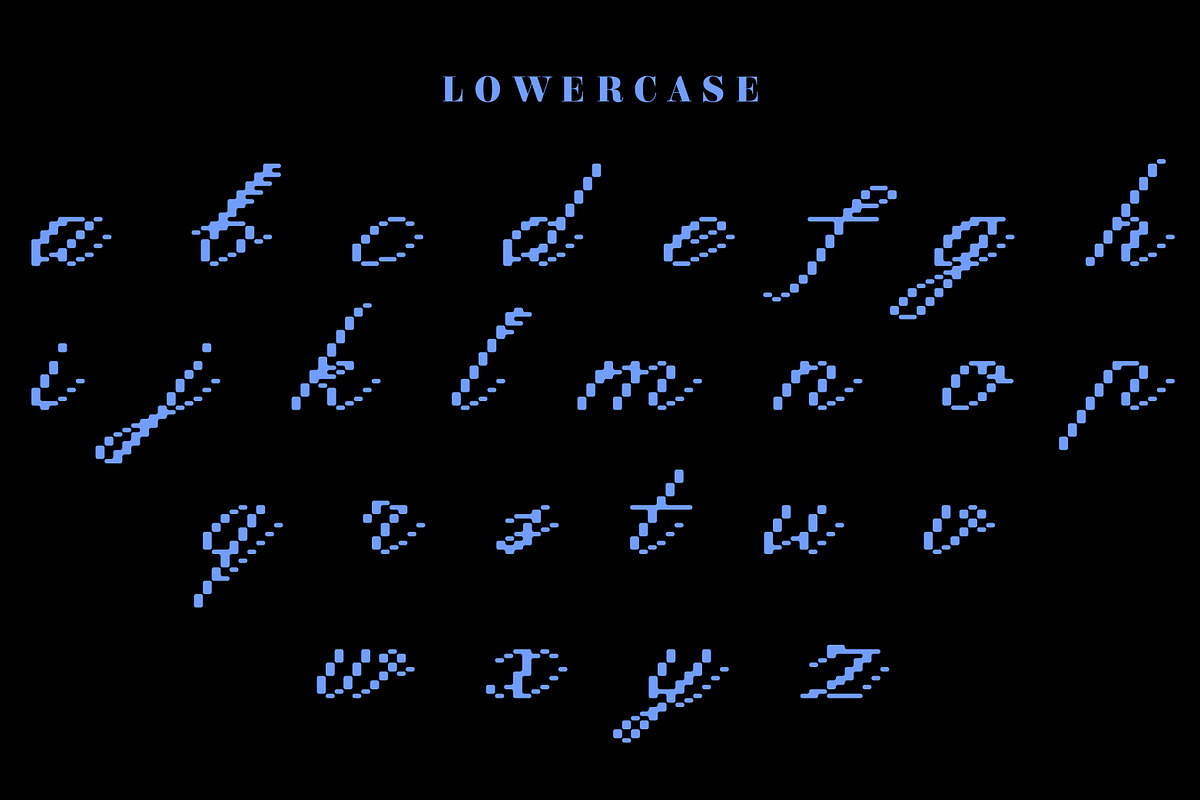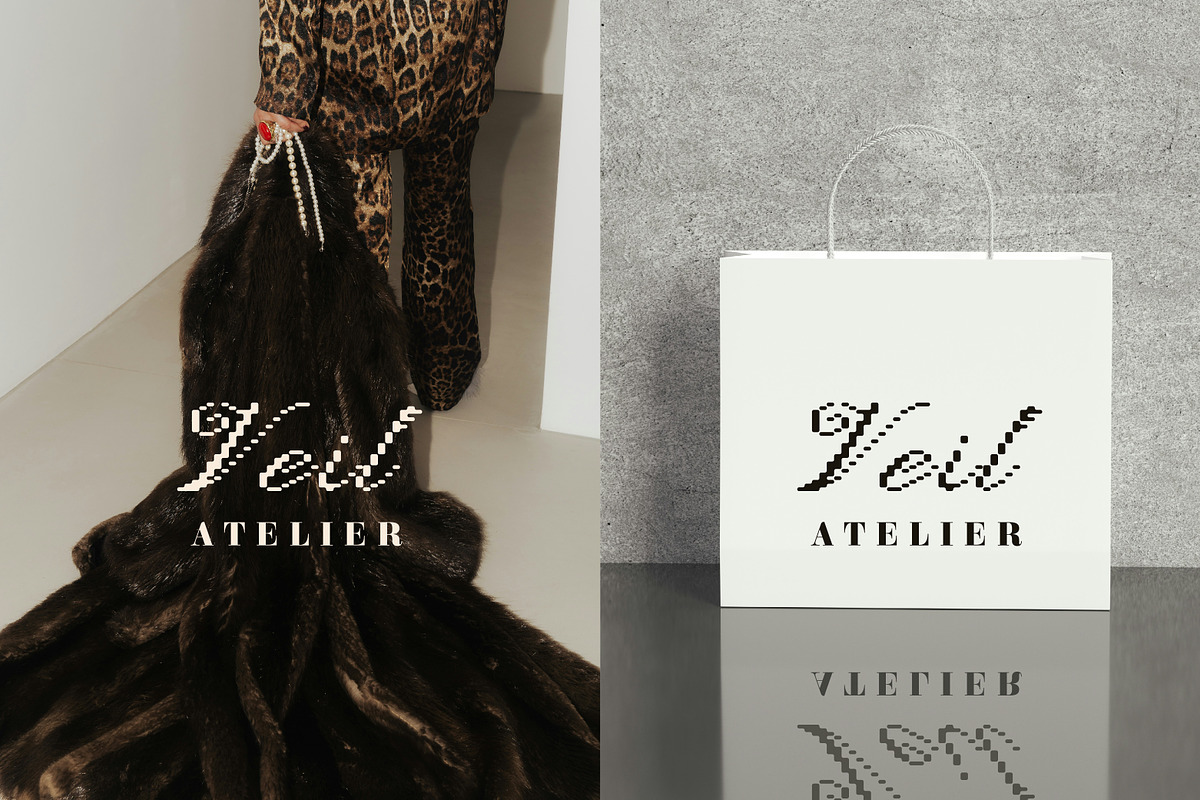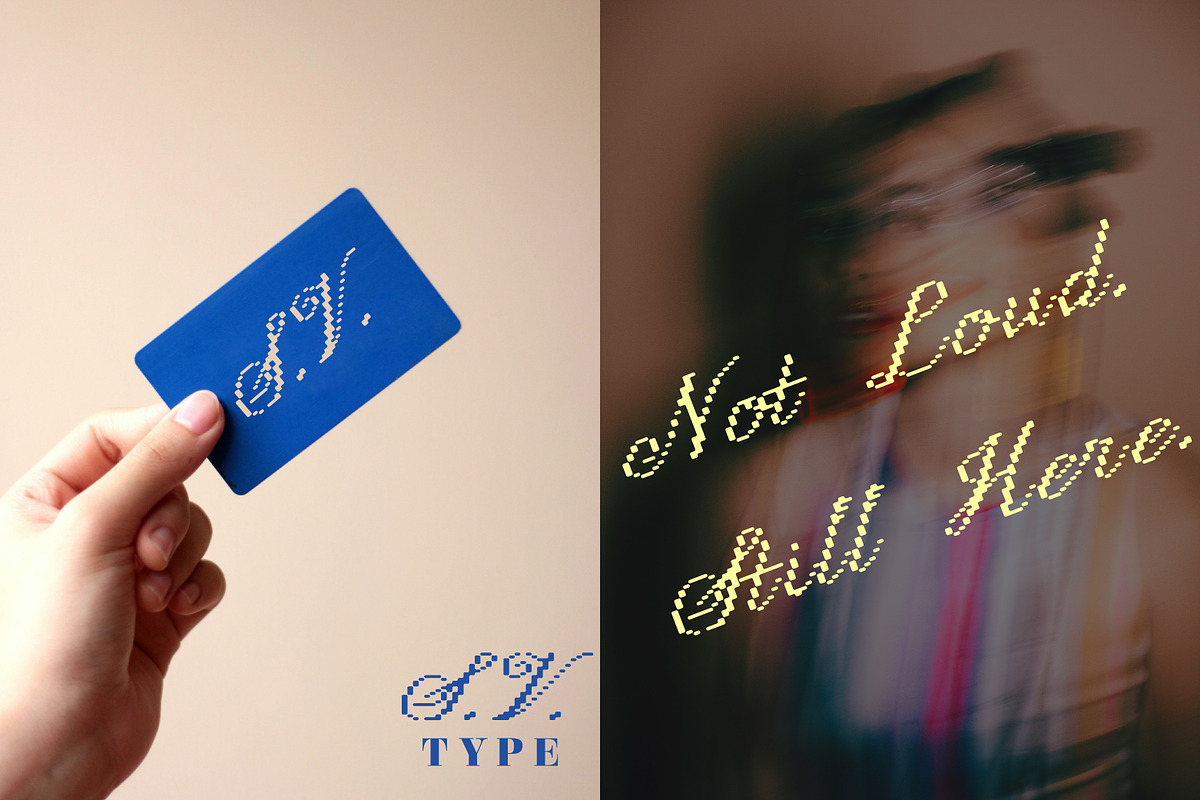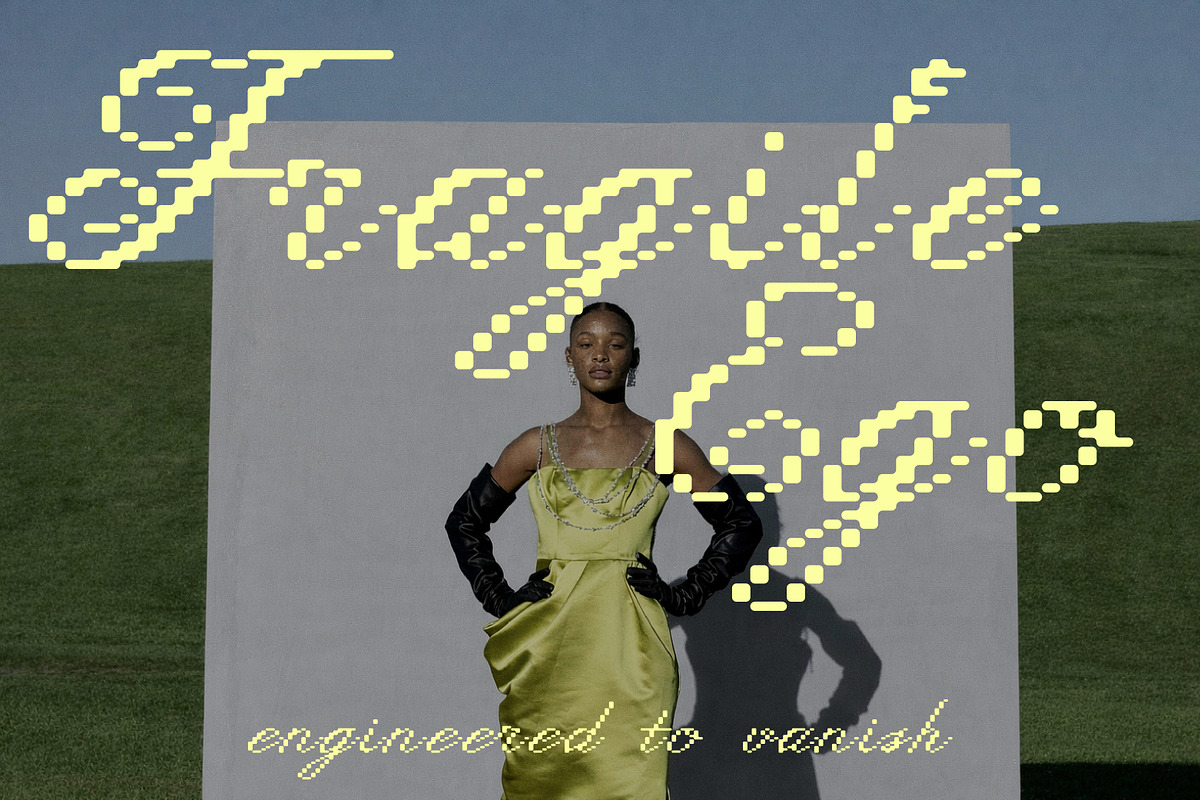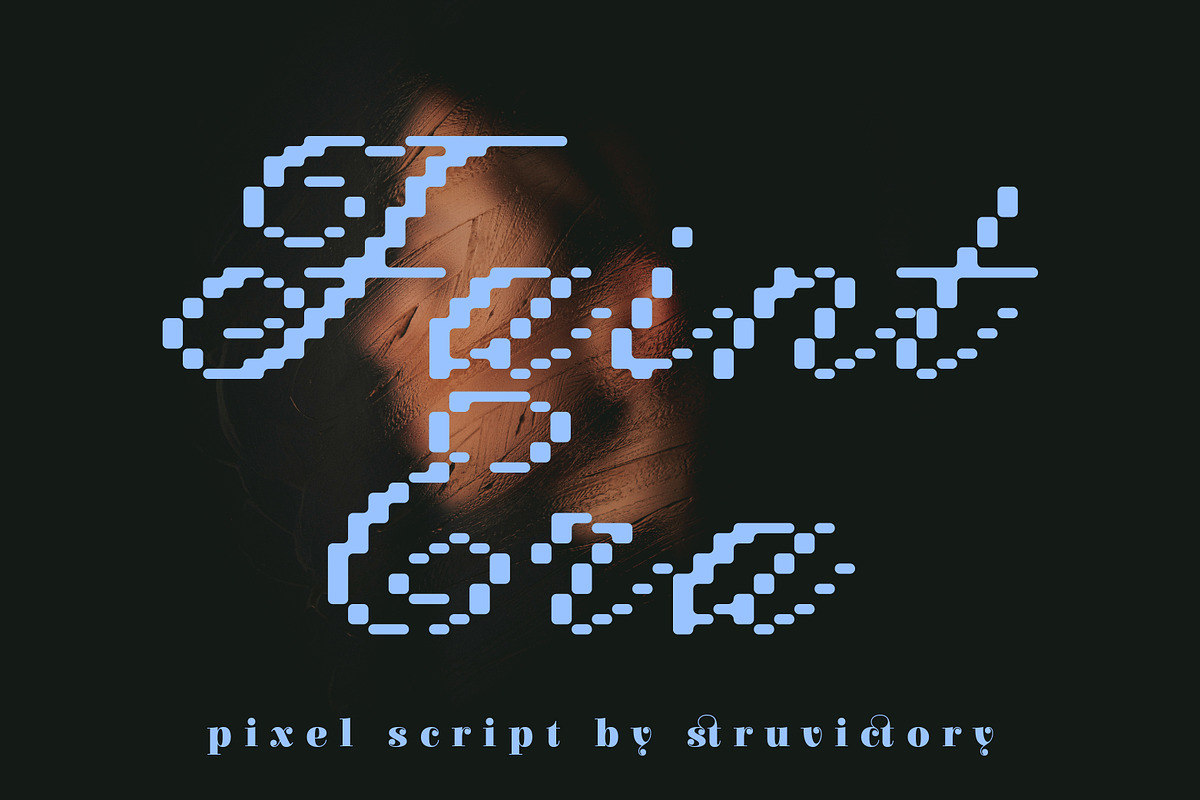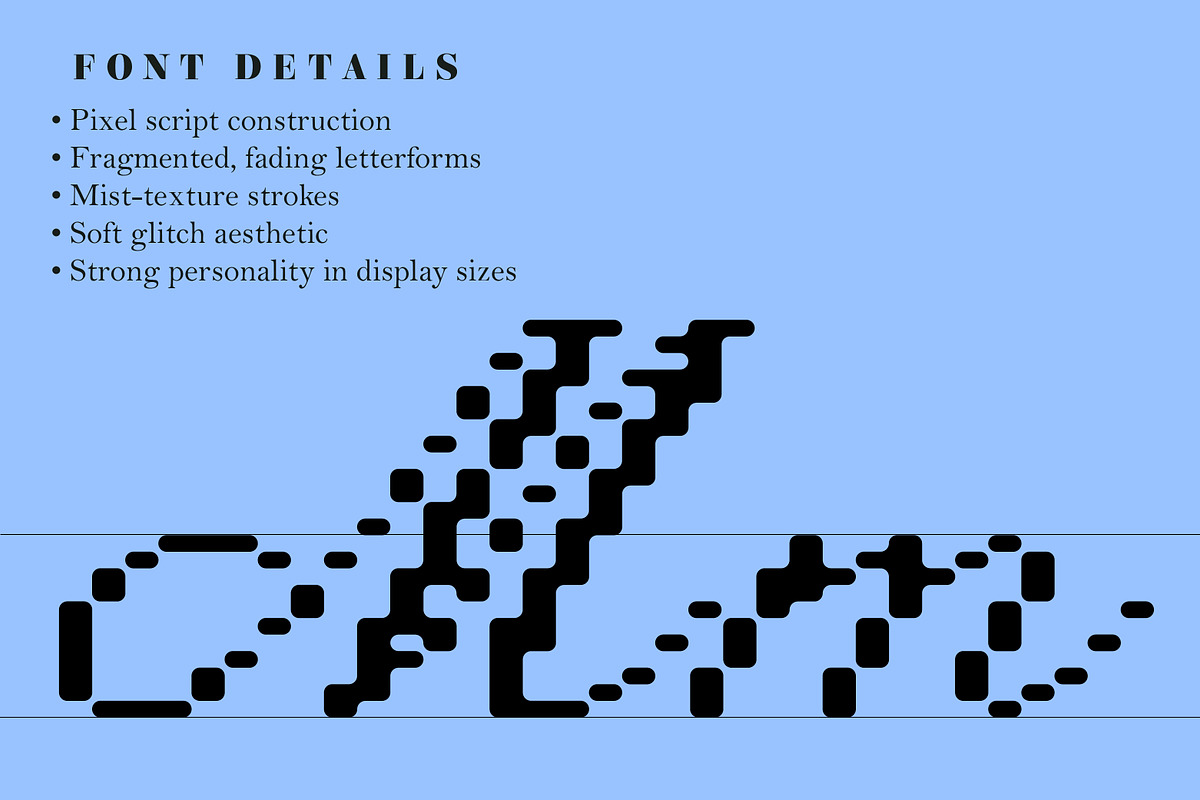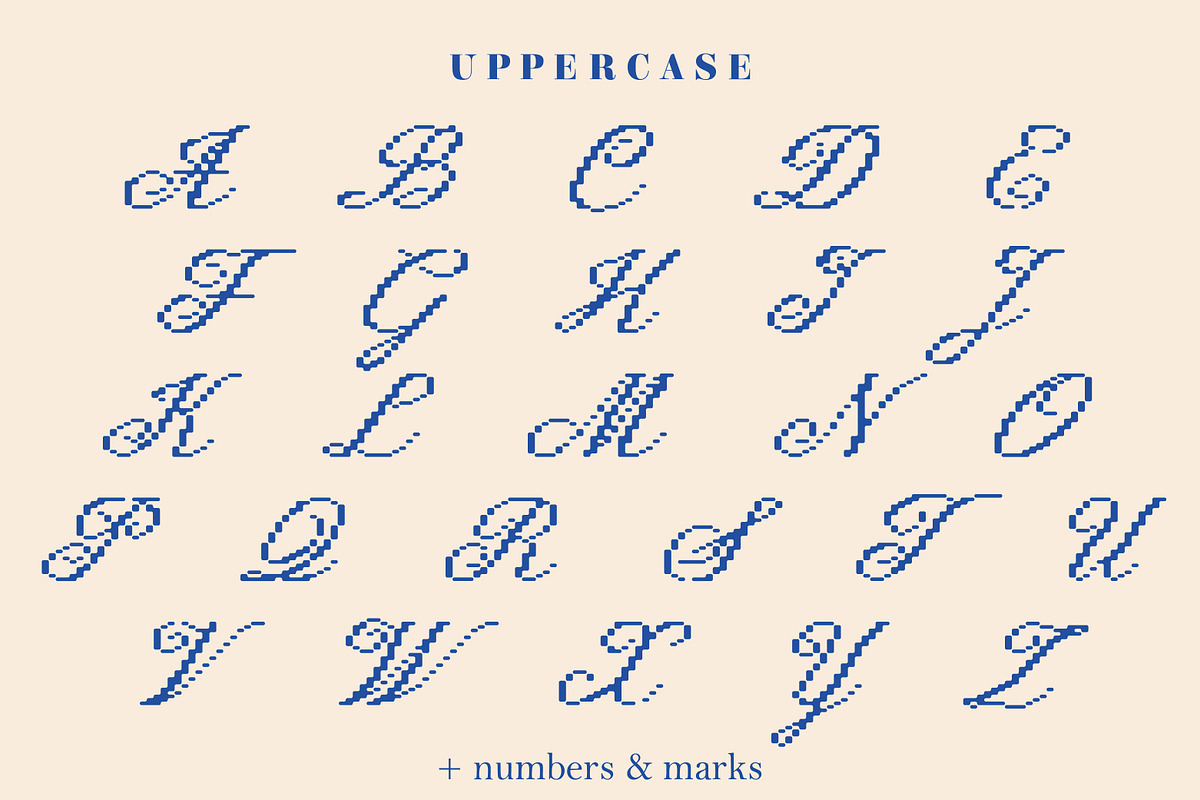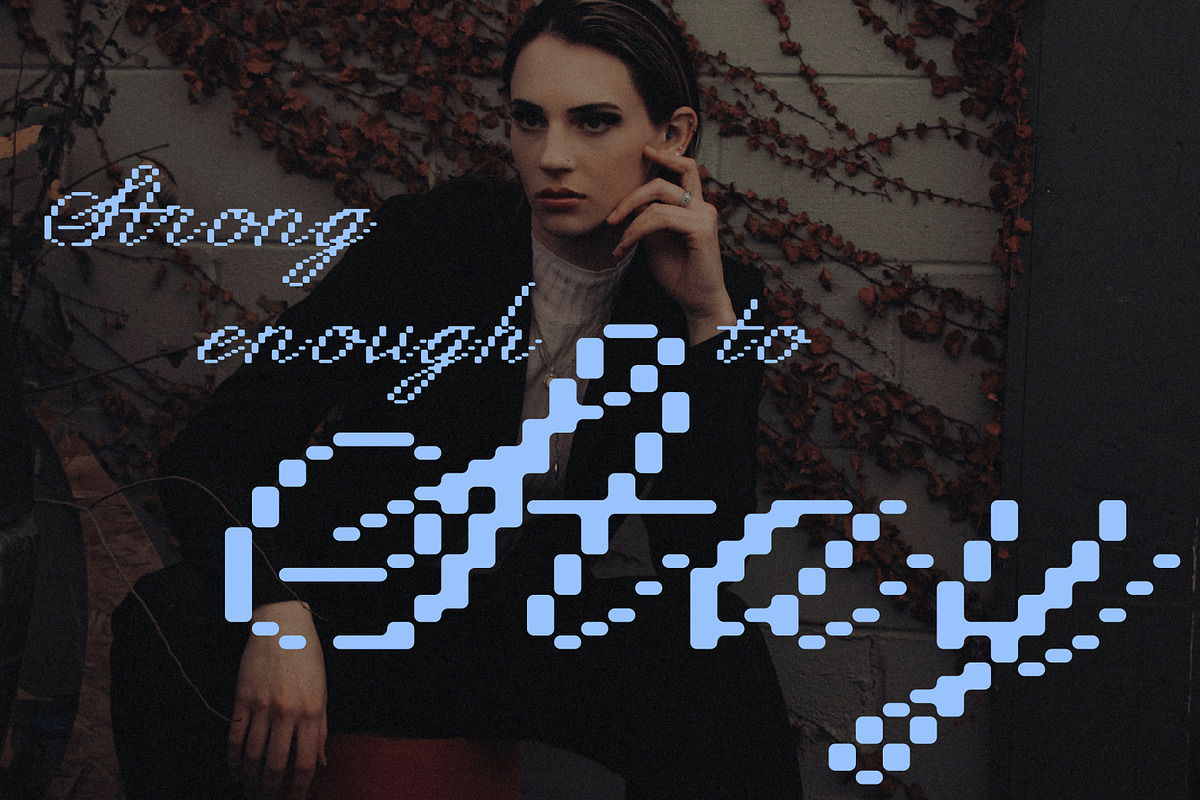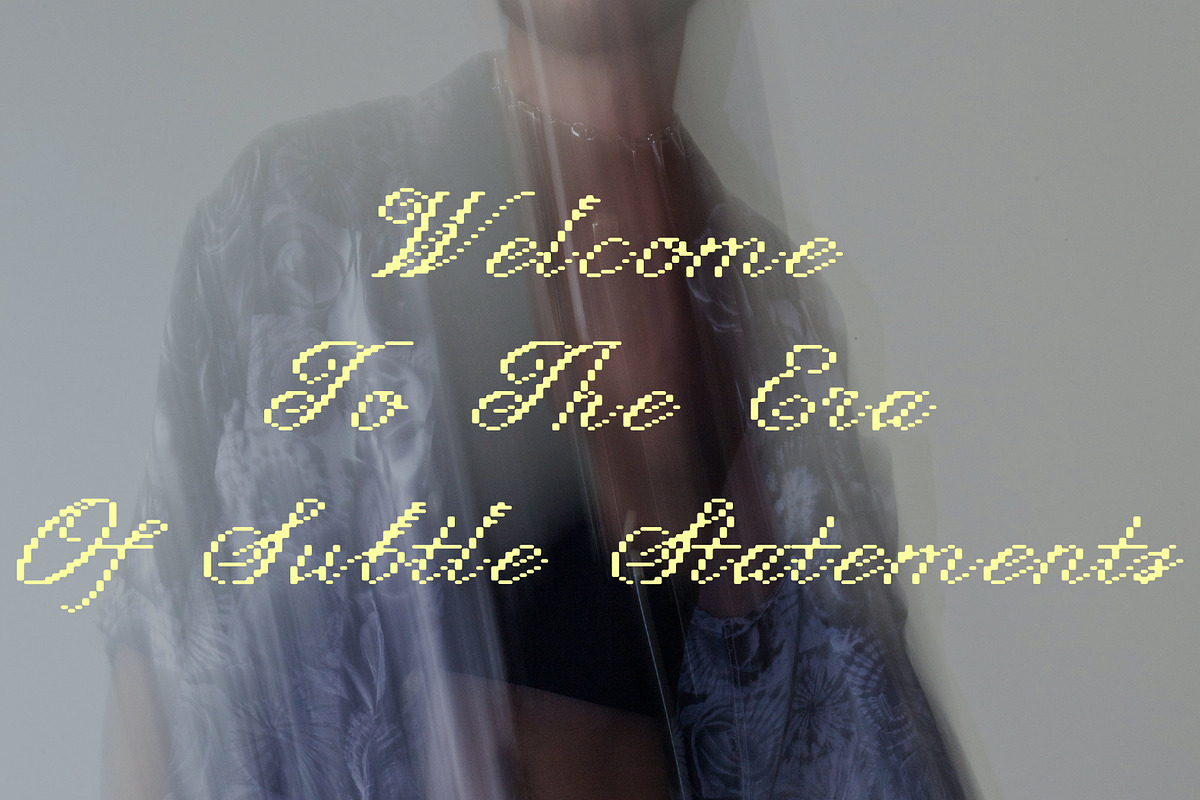
Faint Era Pixel Calligraphic Script
Faint Era is a pixel-script display typeface where softness meets digital texture. Built from dotted strokes and fragmented curves, it captures a sense of lightness and atmosphere — delicate, modern, and quietly confident. Designed for large-scale statements, fashion editorials, branding, and expressive typography, Faint Era transforms words into visual rhythm. It’s not about sharp precision — it’s about subtle movement, airy structure, and presence at low volume. Perfect for designers who want elegance with an experimental, fashion-forward edge.